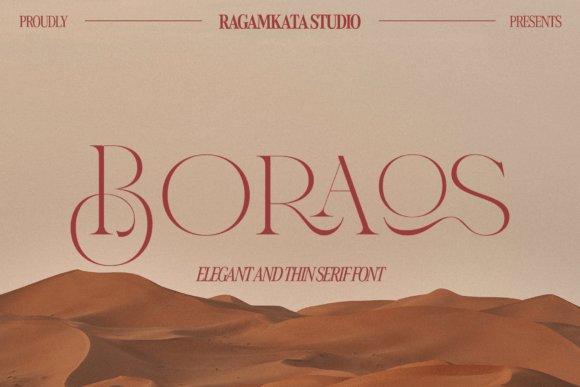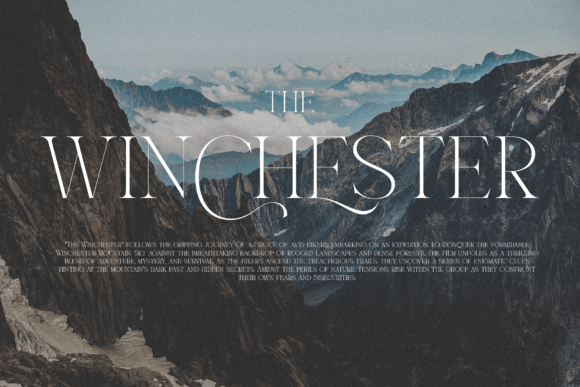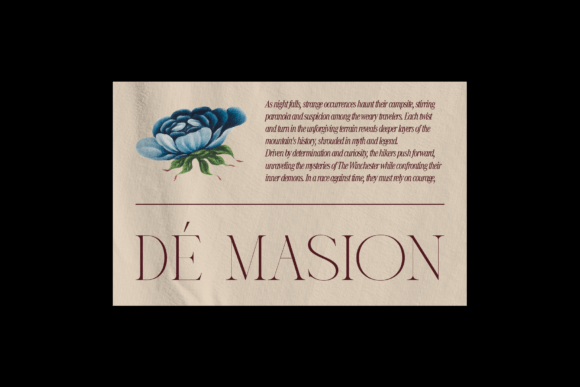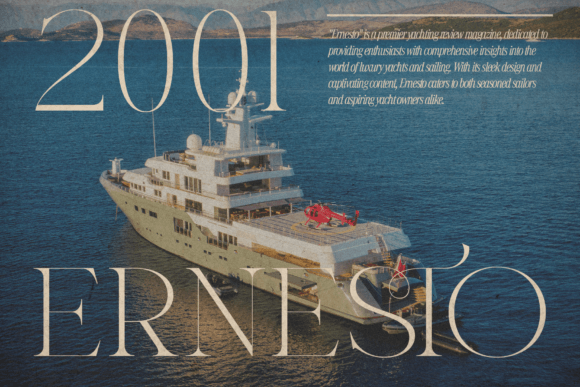
Boraos Font: An Elegant Serif for Modern Logo Design & Branding
About the Boraos Font
The Boraos Font is here to transform your projects with its distinctive character and style. Boraos isn’t just another serif font; it’s a symbol of refined sophistication and timeless elegance. With its delicate and slender strokes, Boraos embodies the essence of grace and style in modern typography.
Crafted for designers seeking to add a touch of class to their projects, Boraos offers a perfect balance between elegance and readability. Its thin serifs and graceful curves make it ideal for a wide range of applications, from branding materials to editorial layouts.
Boraos excels in applications requiring understated elegance, such as high-end branding, logos, and short-form editorial pieces like magazine headlines or invitations. Its delicate nature makes it less suitable for body text or lengthy paragraphs where readability is paramount. Avoid using it in UI contexts or situations demanding high contrast.
For optimal impact, pair Boraos with a clean sans-serif like Montserrat for a contemporary feel, or a geometric sans-serif such as Futura for a more modernist approach. A playful script font could add a touch of personality for specific applications, but should be used sparingly to maintain Boraos’ inherent sophistication.
The overall personality of Boraos is sophisticated and refined, conveying a sense of quiet luxury and timeless appeal. It’s best suited for brands aiming for a premium image and projects emphasizing subtle elegance.